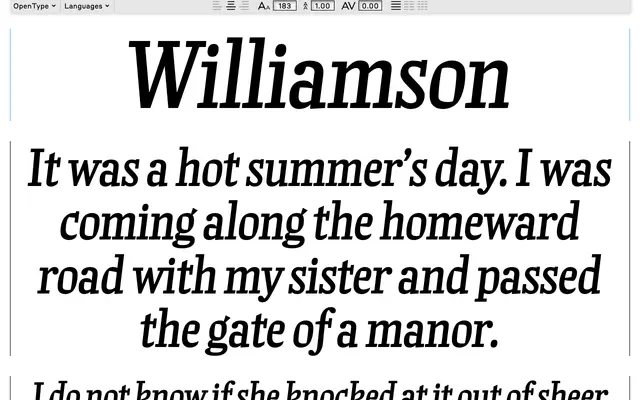
Williamson
Commercial Type · Commercial Type
Williamson specimen from Commercial Type
A single italic display style from Commercial Type, drawn from a nineteenth century specimen for mastheads and short headlines.
A single italic display style from Commercial Type, presented as Williamson Italic. Drawn from a nineteenth century specimen, it is built for editorial mastheads, packaging and short headline work where you want one distinctive italic voice rather than a broad weight system. Pairs in Commercial Type's catalogue with their larger serif systems for body copy.
Commercial Type present Williamson as a single italic display style, drawn from a nineteenth century specimen.